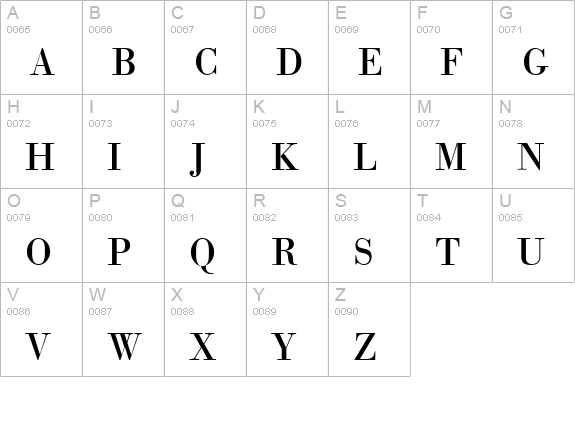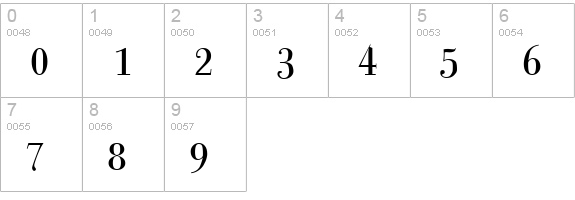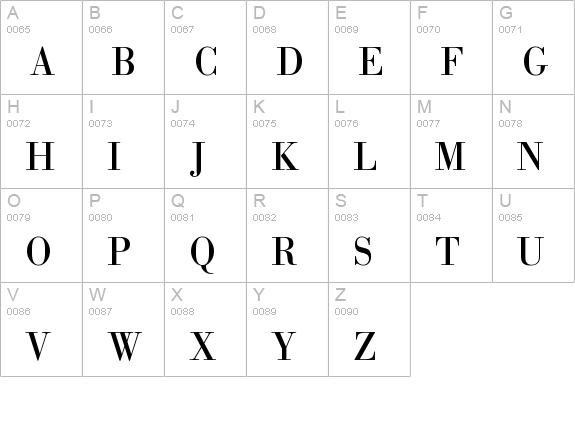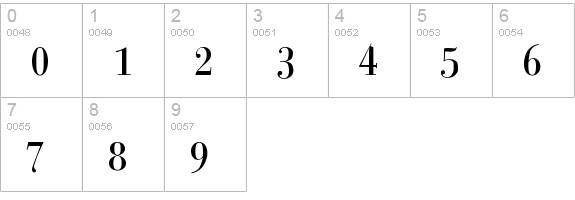
GiambattistaVsPetit Font Details
GiambattistaVsPetit is a stunning and versatile font that effortlessly merges classic elegance with contemporary design. This font is a true gem for designers and typographers alike, as it offers a wide range of applications, from editorial layouts to branding projects. With its delicate serifs and refined letterforms, GiambattistaVsPetit exudes a sense of sophistication and refinement. The clean and balanced design ensures excellent legibility at any size, making it perfect for both print and digital applications. One of the most remarkable aspects of GiambattistaVsPetit is that it is available for free. Yes, you heard it right! This exceptional font can be freely downloaded at FontsMarket.com, making it accessible to everyone who wants to add a touch of elegance to their projects without breaking the bank. Whether you are working on a logo, a magazine layout, a website, or any other creative endeavor, GiambattistaVsPetit is the ideal choice to elevate your designs. Its timeless aesthetic will stand the test of time, ensuring that your work remains visually captivating for years to come. So why wait? Visit FontsMarket.com today and get your hands on this extraordinary font. Unleash your creativity and let GiambattistaVsPetit take your design projects to new heights. Experience the beauty of this free font and transform your work into a masterpiece.